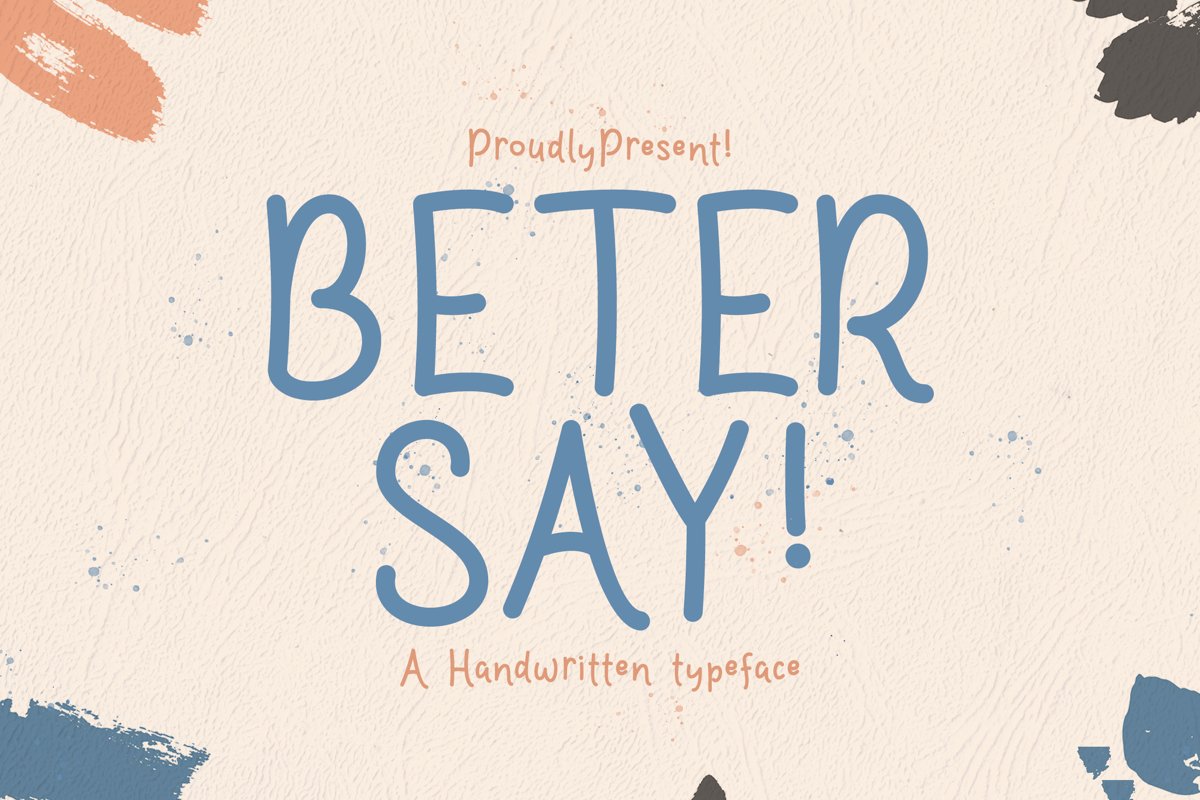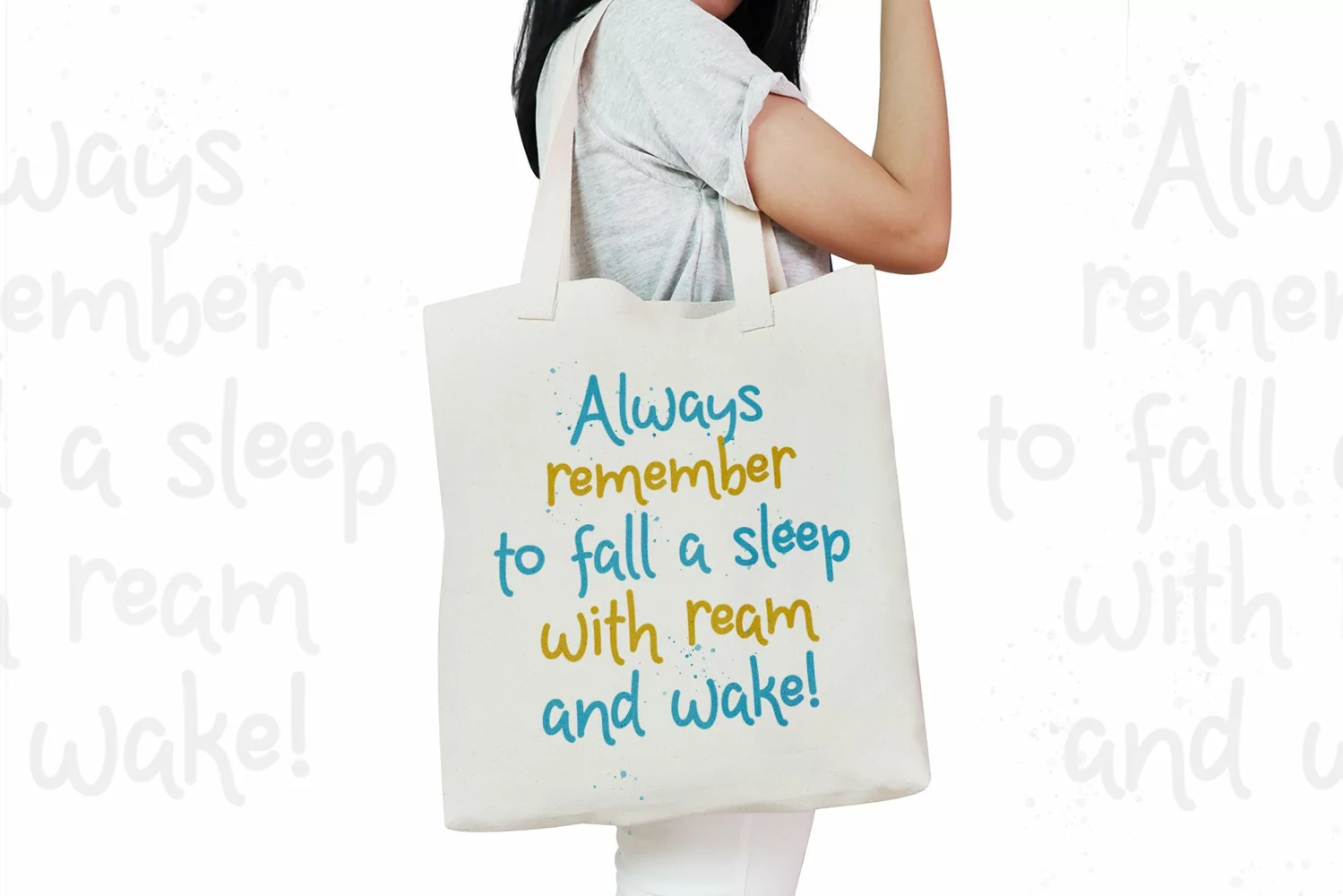
Betersay is a handwritten display typeface. Perfect for display, quotes, poster, logo, logotype, price tag, crafting needs, florist needs, business card, print, t-shirt, merchandise and many more.